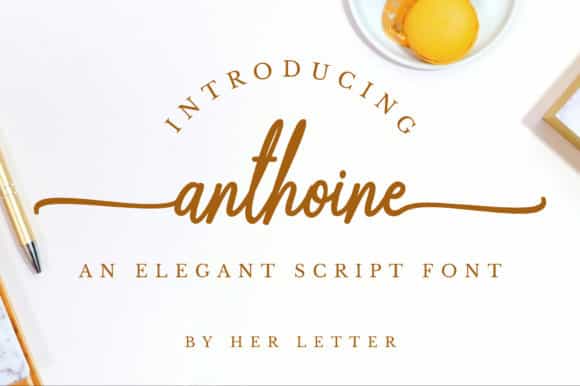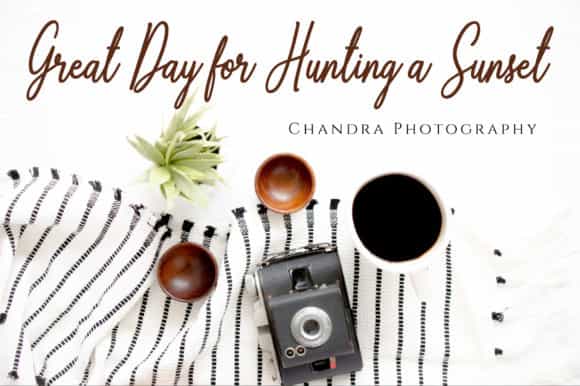
Anthoine is a script font of a refined style. It contains the fine alternates and ligatures that will make your design nice, sophisticated and natural.